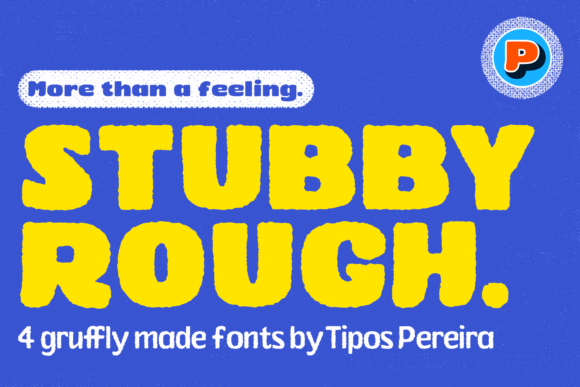
Journey into an artistic universe where typography takes center stage. Discover Stubby Rough, a display type family born from the urban fabric and graffiti culture. With its four distinct styles, this font exudes personality, inviting you to create captivating visual statements.
Carved from the raw energy of the streets, Stubby Rough is not just a font; it's an emotional toolbox for your creative expression. Unleash the rebel within and let your designs scream with attitude. Whether you're a seasoned designer or just starting, the Stubby Rough family is your ultimate companion, promising an unforgettable typographic experience.
Add an edge to your titles and headlines. Make your posters and packaging stand out with a rough, urban aesthetic. Each letterform in Stubby Rough is a brushstroke of pure artistic expression, reminiscent of graffiti that adorns the walls of cities. Embrace the unpredictable, the raw, and the beautiful in your designs.
Express yourself with the power of typography. Your words will dance on the page, each letterform a symbol of your creativity and passion. Stubby Rough is a font that speaks to the soul, leaving an indelible mark on your audience.
Dare to be bold, dare to be different. Stubby Rough is more than just a font; it's a passport to a world of artistic possibilities. Join the movement and become a typographic rebel. Stubby Rough awaits you, ready to unleash your creative potential.